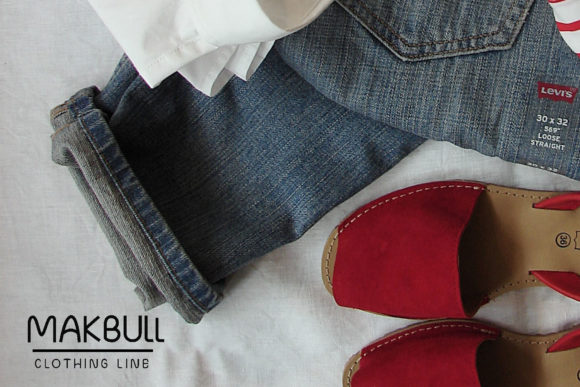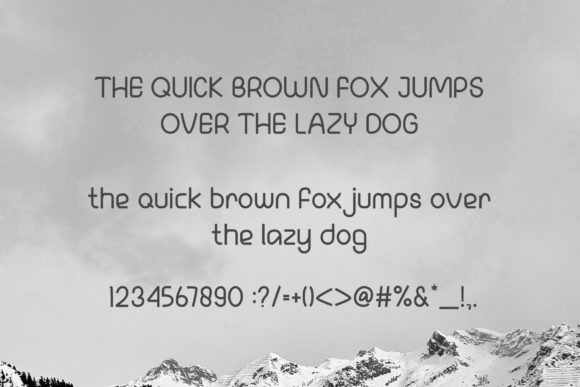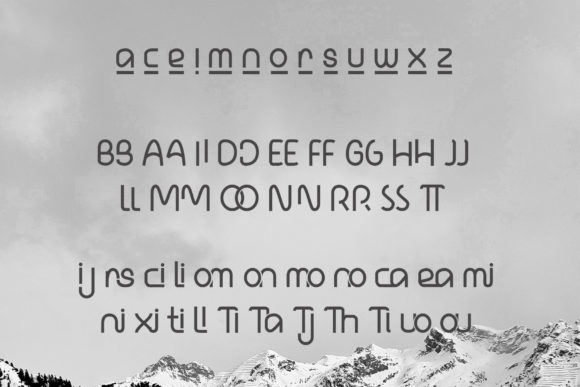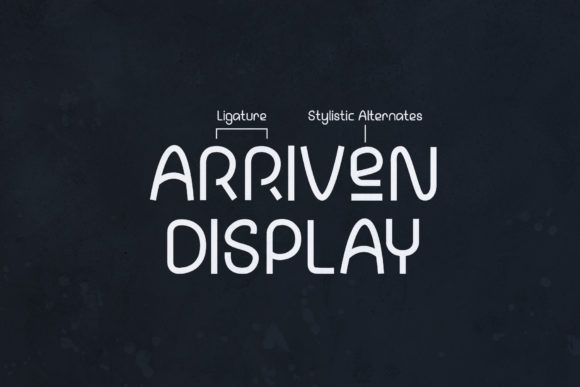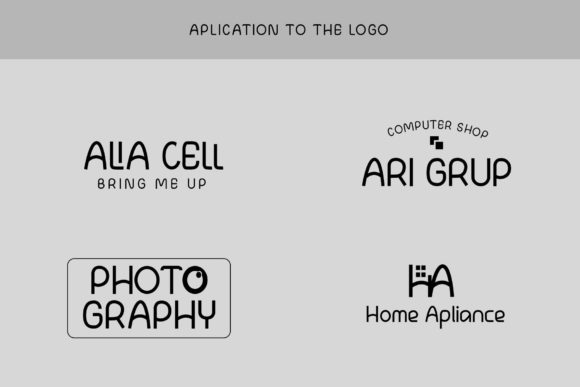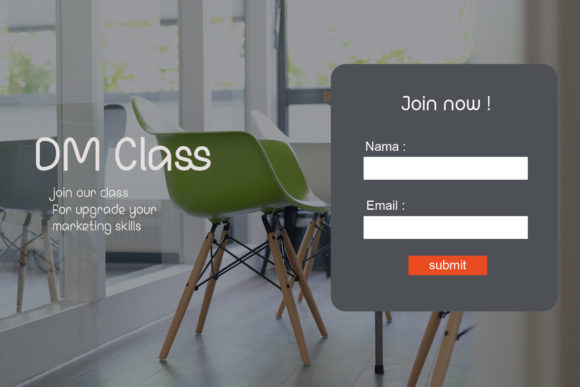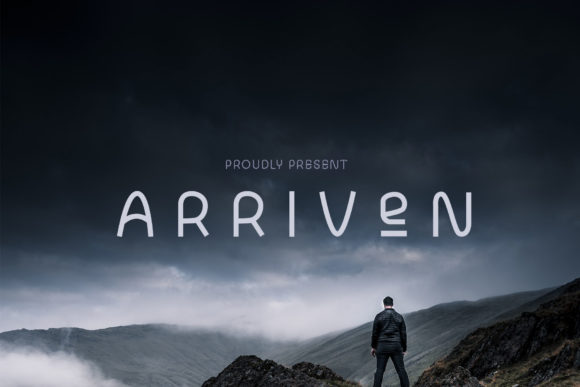
The Designer’s Delight: Unpacking the Arriven Font
I’ll never forget the design project that had me stuck in a font limbo. I was working on a vintage-inspired branding campaign for a client, and no matter how hard I tried, I just couldn’t find the perfect font to capture that cool, indie vibe. That was until I stumbled upon the Arriven font. With its unique blend of vintage charm and modern flair, it was love at first sight! In this article, I’ll share my experience with the Arriven font, its features, and how to make the most of it in your designs.
First Impressions: A Review of Arriven Font
The Arriven font is a cool, indie-styled, and vintage display font that’s sure to elevate your designs. Here’s what I love about it:
- ✨ PUA encoded for easy access to glyphs and swashes
- ✅ Highly versatile and adaptable to various design projects
- 🔥 Unique vintage flair that adds a touch of personality to your designs
- 👍 User-friendly and easy to navigate, even for beginners
While the Arriven font is undoubtedly amazing, there are a few minor quirks to be aware of:
- ⚠️ Limited use in body text due to its display font nature
- 🤔 Some characters may require manual kerning for optimal results
The Story Behind Arriven Font
The Arriven font was designed with the goal of creating a unique and versatile typeface that captures the essence of indie and vintage styles. Inspired by classic typography and modern design trends, the Arriven font is perfect for designers, crafters, and creative hobbyists looking to add a touch of personality to their projects.
| What is the Arriven font best used for? | The Arriven font is ideal for display text, headings, and titles in various design projects, such as branding, advertising, and packaging. |
| Is the Arriven font suitable for body text? | No, the Arriven font is a display font and is not recommended for body text due to its decorative nature. |